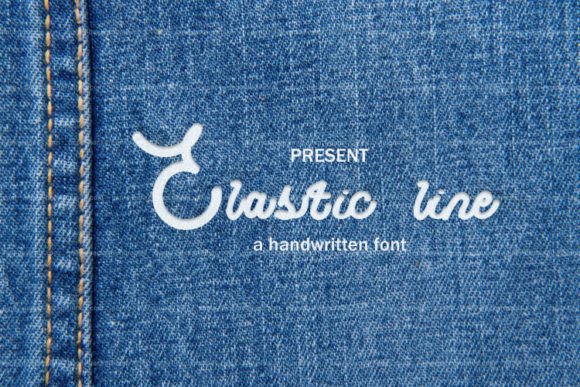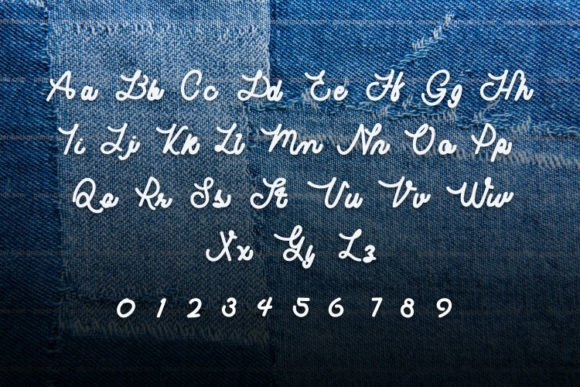
Elastic Line Font
About Elastic Line Font
The Elastic Line Font Download is a cool and unique handwritten script that blends creativity with professional usability. Carefully crafted with attention to detail, this typeface offers smooth, neat strokes that bring character and charm to every design. Its handcrafted appearance provides the warmth of natural handwriting while maintaining excellent readability.
With its versatile design, Elastic Line is perfect for both personal and commercial projects. Whether you’re crafting logos, wedding invitations, posters, or social media graphics, Elastic Line adapts seamlessly, giving your work a personal yet polished touch.
Features of Elastic Line Font
• Cool handwritten style with unique personality
• Neat and carefully crafted letterforms for balance and clarity
• Complete character set with uppercase, lowercase, numerals, and punctuation
• Highly detailed strokes that enhance your creative work
• Versatile design suitable for digital, print, and craft projects
Best Uses for Elastic Line Font
• Logos and branding – Create stylish and approachable brand identities
• Wedding invitations and stationery – Add elegance and warmth to your special day
• Product packaging – Ideal for cosmetics, handmade goods, or lifestyle brands
• Posters and flyers – Perfect for promotional materials with a modern handwritten look
• Social media content – Enhance Instagram posts, Pinterest pins, or digital ads
• DIY crafts – Add a personal, handwritten touch to cards and creative projects
• Editorial design – Use in magazines, brochures, and headlines for an artistic finish
Why Choose Elastic Line Font
The Elastic Line Font Download stands out because it combines authentic handwritten style with professional usability. Unlike fonts that are either too decorative or too plain, Elastic Line finds the balance between creativity and clarity, making it suitable for a wide range of applications.
Designers love Elastic Line for its unique personality and timeless appeal. Its neat structure ensures readability, while its handcrafted strokes add originality. This makes it an excellent choice for both casual projects and polished commercial designs.
The Elastic Line Font Download is a cool and unique handwritten script that adds character, detail, and elegance to your creative work. With its carefully crafted strokes, full character set, and versatile usability, it’s perfect for logos, invitations, posters, packaging, social media graphics, and more.